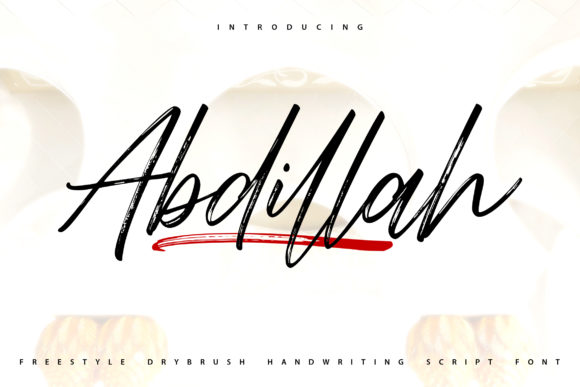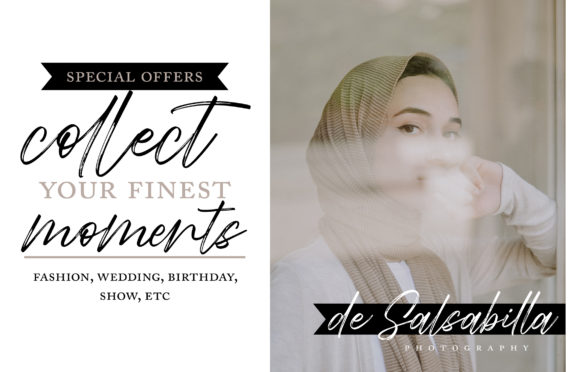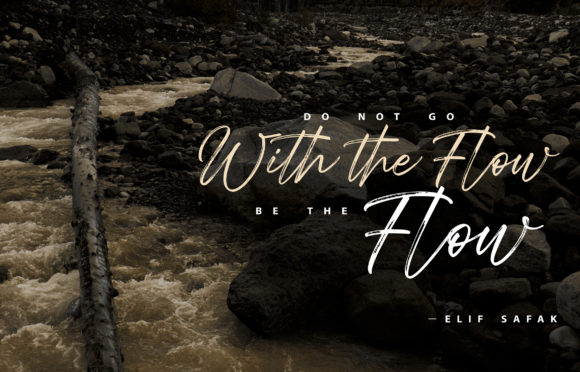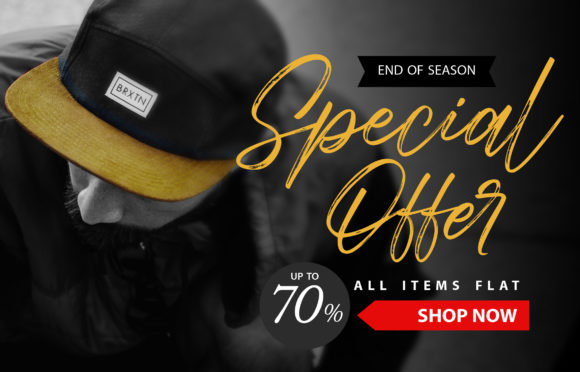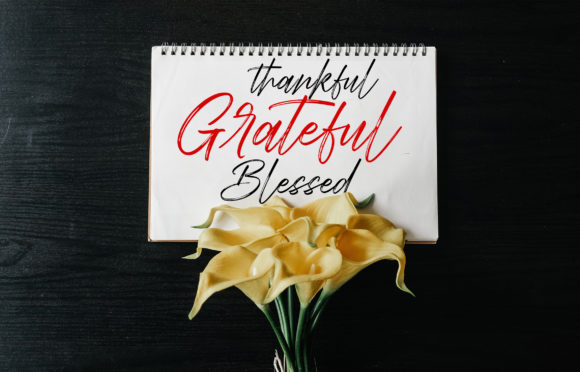
Abdillah Font
About Abdillah Font
Abdillah is a unique and gorgeous handwritten font, created with the help of a beautiful brush pen. Fall in love with its incredibly distinct and timeless style and use it to create spectacular designs!